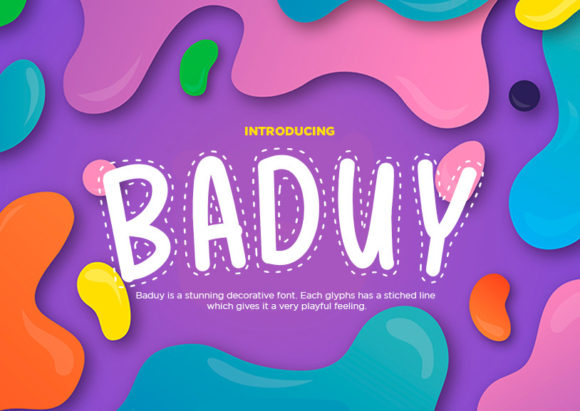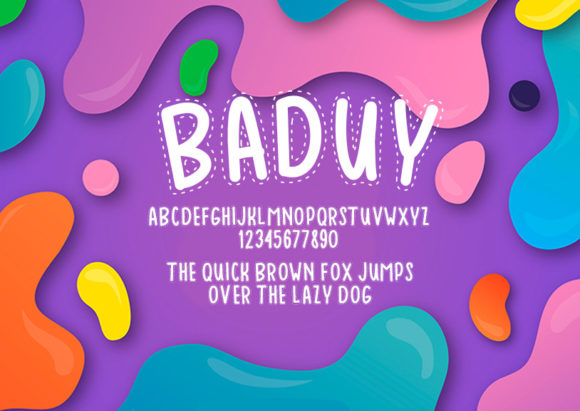
Introducing Baduy Font: The Playful and Stunning Display Font for Children-Themed Designs
Are you a designer or crafter looking for a unique and eye-catching font to add a playful touch to your children-themed designs? Look no further than Baduy Font! This stunning and cool display font is sure to capture the attention of your audience with its distinctive stitched line glyphs that exude a sense of fun and playfulness.
What Makes Baduy Font So Special?
Baduy Font is a one-of-a-kind display font that features a stitched line design for each glyph. This unique characteristic gives the font a very playful and charming feeling, making it perfect for designs aimed at children or for anyone looking to add a touch of whimsy to their project. The font’s playful nature is further enhanced when paired with bright and vibrant colors, creating a visually appealing combination that is sure to delight.
Perfect for Children-Themed Designs
Baduy Font is specifically designed with children-themed designs in mind. Whether you’re working on a project for a kids’ party, a children’s book, or a nursery decor, this font is sure to bring a smile to your audience’s faces. The font’s playful and fun nature makes it an excellent choice for designs that require a lighthearted and youthful touch.
Key Features of Baduy Font
- Unique Stitched Line Glyphs: Each glyph features a distinctive stitched line design that gives the font its playful and charming feel.
- Playful and Fun: The font’s design is perfect for children-themed designs and adds a touch of whimsy to any project.
- Bright Color Combinations: Pair Baduy Font with bright and vibrant colors to create a visually appealing combination.
- Display Font: Baduy Font is a display font, making it perfect for headlines, titles, and other attention-grabbing elements.
How to Use Baduy Font in Your Designs
Using Baduy Font in your designs is easy! Here are a few tips to get you started:
- Pair with Bright Colors: As mentioned earlier, pairing Baduy Font with bright and vibrant colors is a great way to enhance its playful nature.
- Use for Headlines and Titles: Baduy Font is a display font, making it perfect for headlines and titles. Use it to grab attention and add a touch of whimsy to your design.
- Experiment with Different Sizes: Don’t be afraid to experiment with different font sizes to add visual interest to your design.
Why Designers and Crafters Love Baduy Font
Designers and crafters love Baduy Font for its unique and playful design. Here are a few reasons why:
- Unique Design: Baduy Font’s stitched line glyphs make it a one-of-a-kind font that stands out from the crowd.
- Easy to Use: The font is easy to use and can be incorporated into a variety of designs.
- Versatile: Baduy Font can be used in a range of designs, from children-themed designs to more adult-oriented projects.
In conclusion, Baduy Font is a stunning and cool display font that is perfect for children-themed designs. Its unique stitched line glyphs and playful nature make it a great choice for designers and crafters looking to add a touch of whimsy to their projects. With its ease of use and versatility, Baduy Font is sure to become a favorite among designers and crafters.